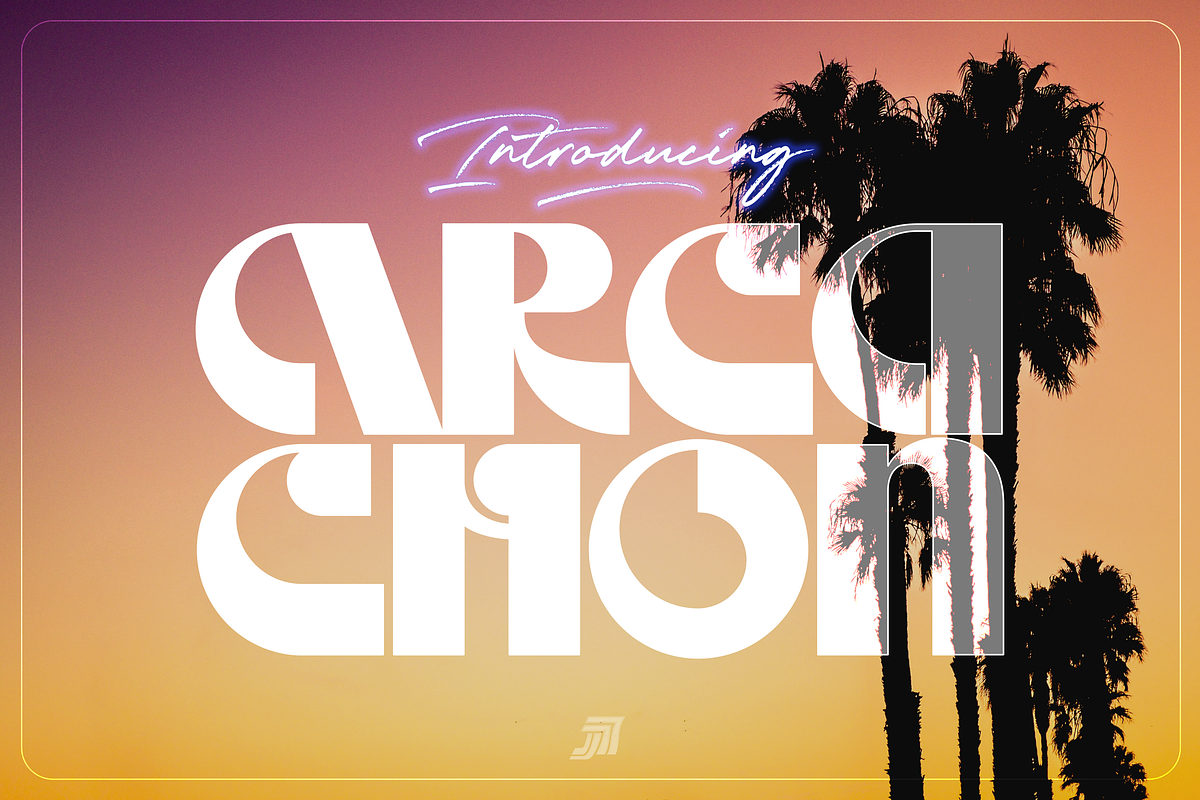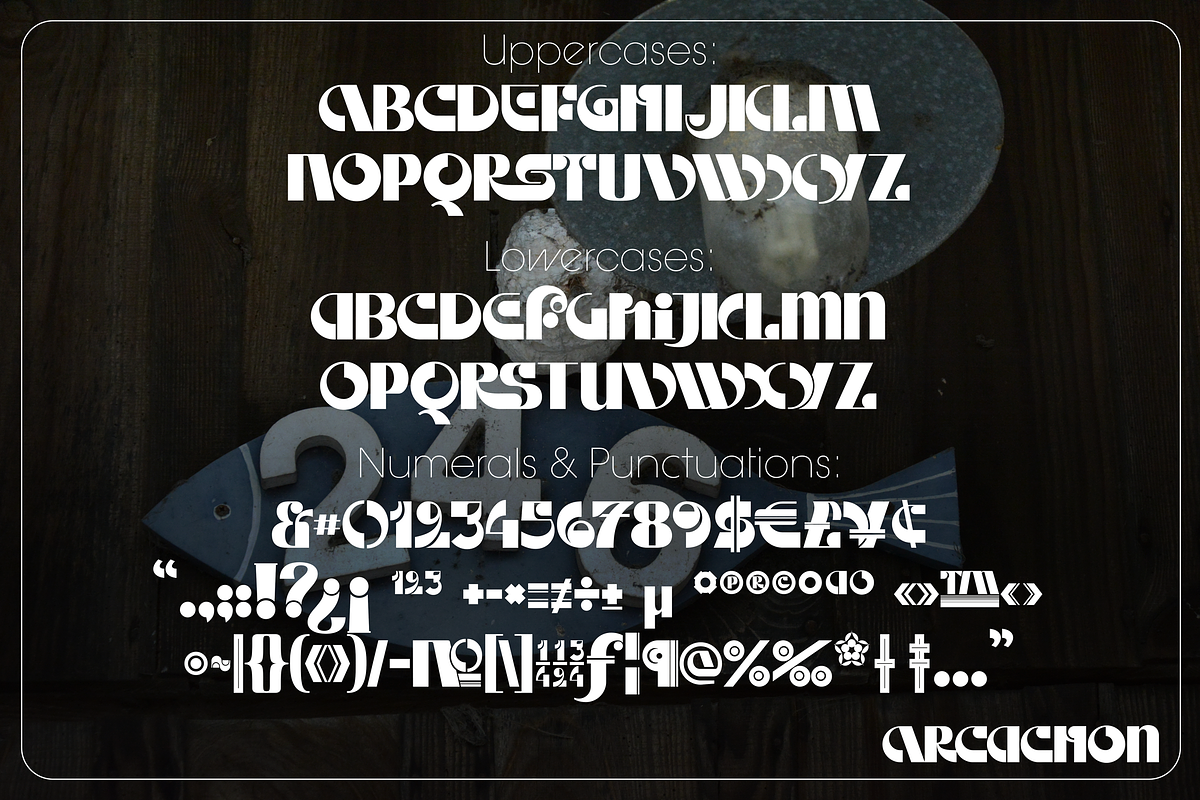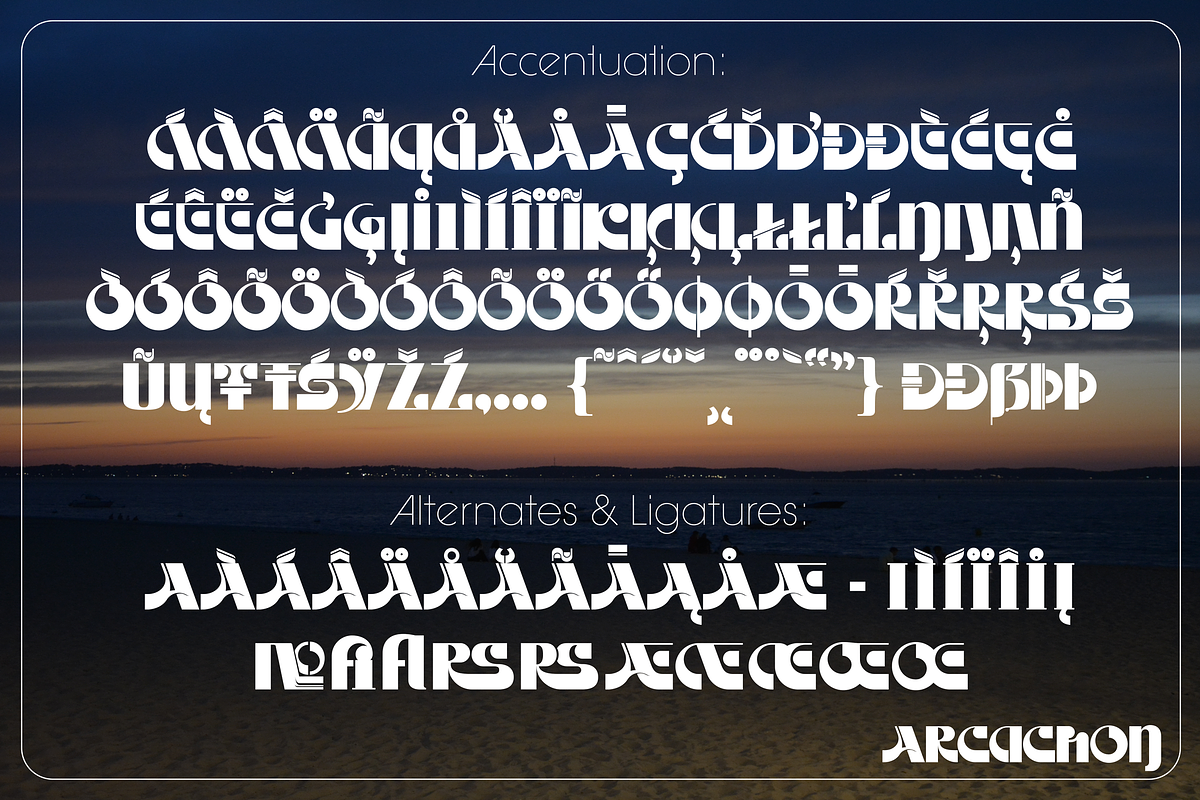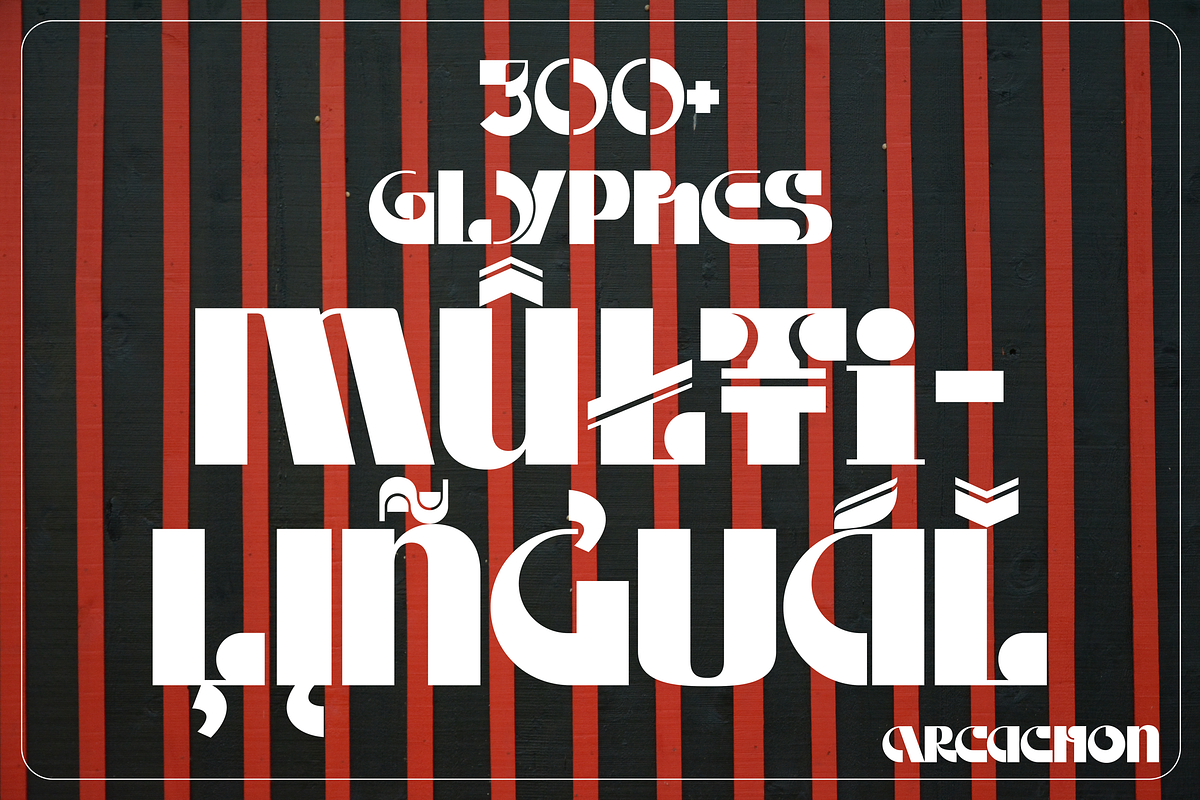
ARCACHON ArtDeco Typeface
ARCACHON is an Art Deco display typeface inspired by the souvenir of the welcome city sculpture of Arcachon (south west of France- which is in fact composed with Motter Ombra typeface). As a work of memoire and sketch, it is pretty similar and also pretty different. Anyway a very interesting subject of comparaison. This typeface works very well with light sans and brush or script fonts
340+ glyphes. Central & western latin full languages, with some alternates and ligatures.